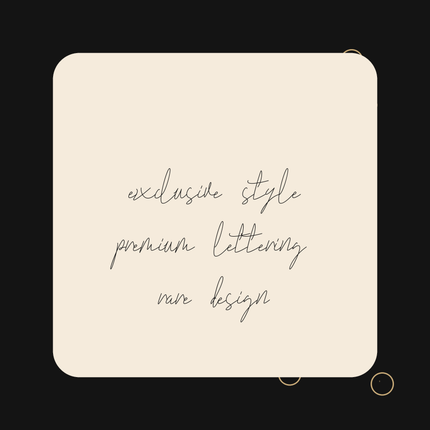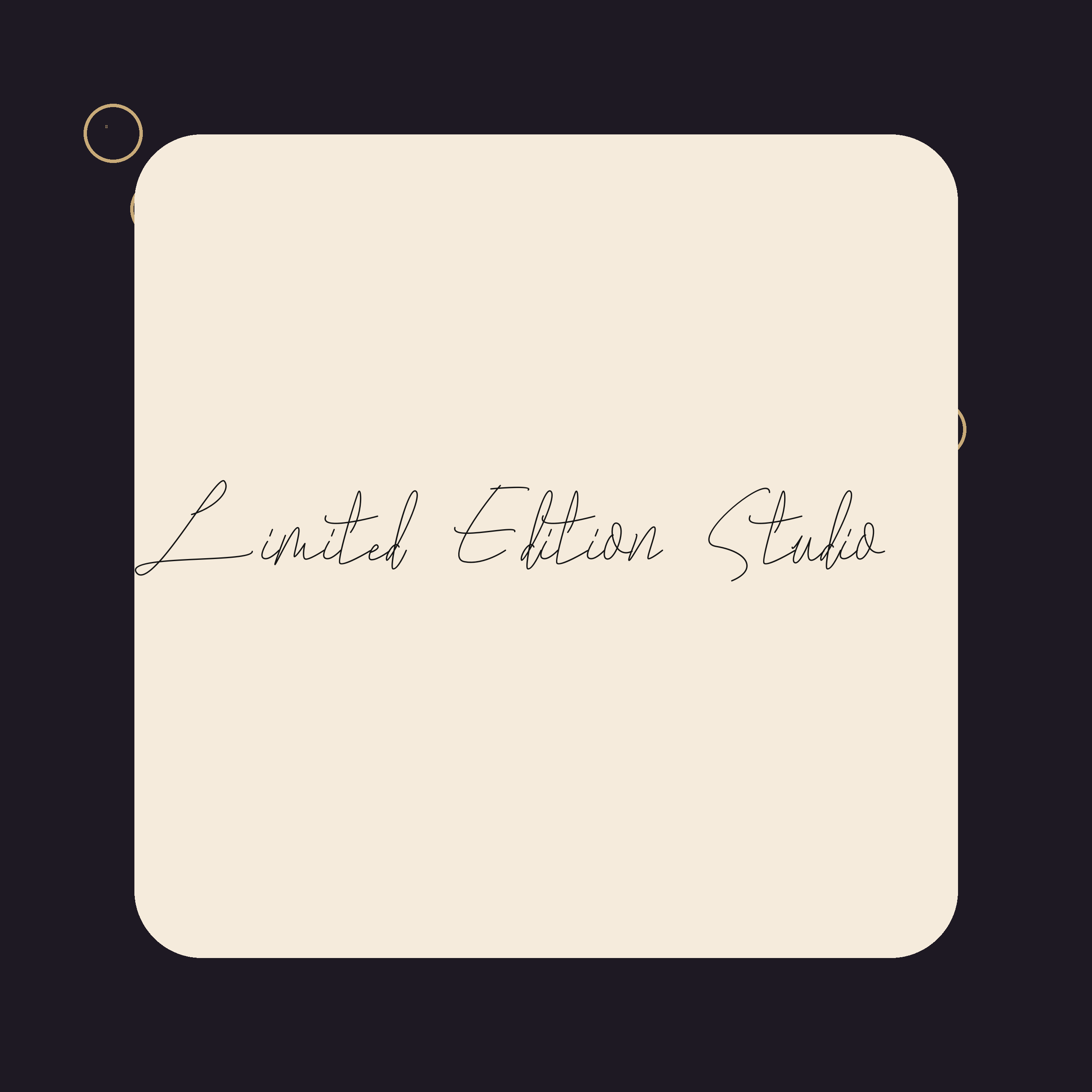
Limited Edition Luxury Script Font | Premium Cricut Font | Elegant Display Branding Font
🖤 Limited Edition is a bold, luxury handwritten display script font designed for premium and exclusive designs. With strong strokes and extra-large lettering, this font is perfect for Cricut projects, high-end branding, logos, and statement designs.
✨ Bold, premium lettering
✨ Extra-large and easy to read
✨ Perfect for luxury & exclusive projects
✂️ Perfect For
• Cricut & Silhouette cutting
• Luxury logos & branding
• Apparel, labels & packaging
• Stickers & decals
• Social media graphics
• Digital & printable products